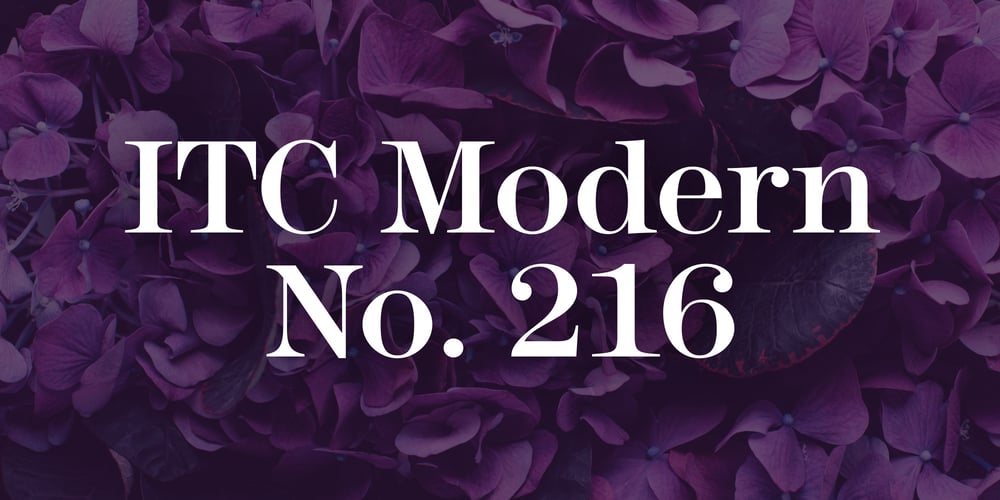
ITC Modern No. 216 Font Family was designed by Edward Benguiat and published by ITC. ITC Modern No. 216 contains 8 styles and family package options. Modern typefaces refer to designs that bear similarities to Bodoni and other Didone faces, which were first created during the late 1700s. Ed Benguiat developed ITC Modern No. 216 in 1982 for the International Typeface Corporation (ITC). Showing a high degree of contrast between thick and thin strokes, as well as a large x-height, this revival is more suited to advertising display purposes than the setting of long running text, or books. Many traits in Benguiat’s design are worth further notice. The thick stems of the roman weights have a very stately, solid presence. Their thin serifs have been finely grafted on, a masterful solution to the challenge of bracketing presented by Modernist designs. The italic weights have a very flowing, script-like feel to them, and the letters take the form of true italics, not obliques. The ITC Modern No. 216 family contains the following font styles: Light, Light Italic, Medium, Medium Italic, Bold, Bold Italic, Heavy, and Heavy Italic.